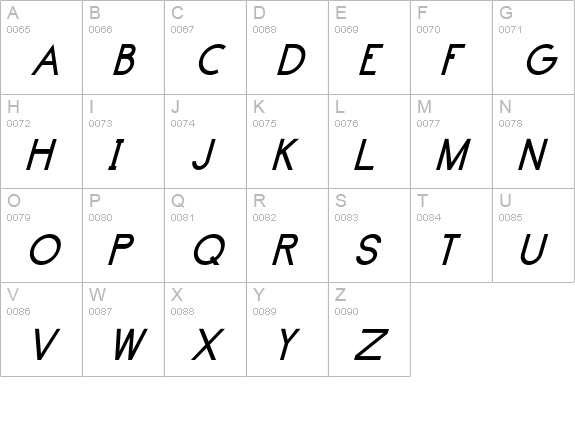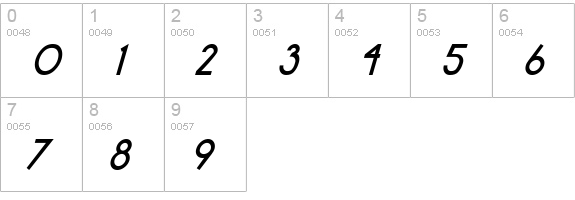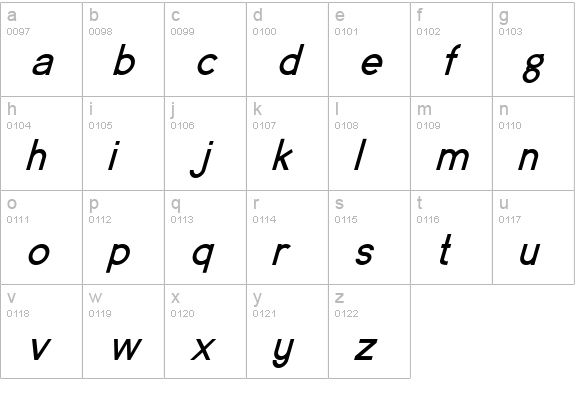
Brassfield-Ital Font Details
Brassfield-Ital font is a sleek and elegant typeface that exudes sophistication and modernity. Its italic style adds a touch of creativity and flair to any design project. The font features clean lines and smooth curves, making it perfect for both digital and print applications. Whether used for headings, logos, or body text, Brassfield-Ital font is sure to make a statement. The best part? Brassfield-Ital font is free to download at FontsMarket.com. Take advantage of this opportunity to add a touch of style and sophistication to your projects without breaking the bank. Download Brassfield-Ital font today and elevate your designs to the next level.